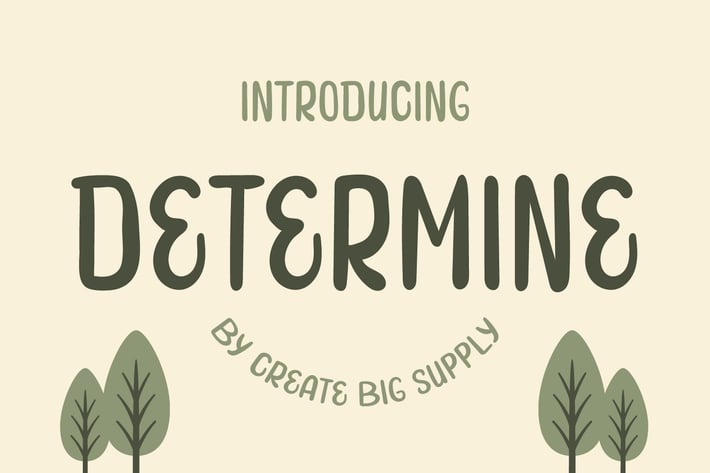
Determine - Handwriting Display Font
The Determine font is a display font with a handwritten style, although this font is all uppercase, you can still explore with this font because it has a unique character.
Features:\
+All Uppercase
+Numbers and punctuation
+Multilingual